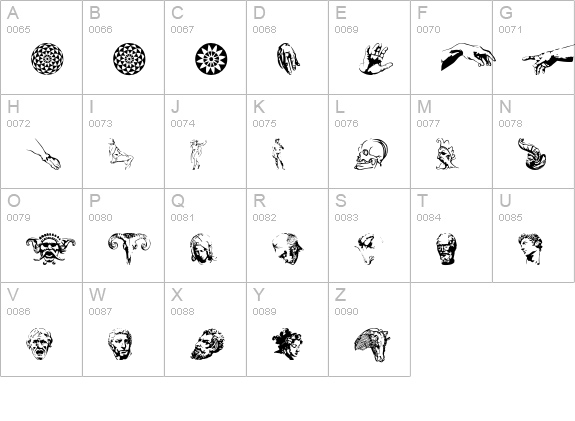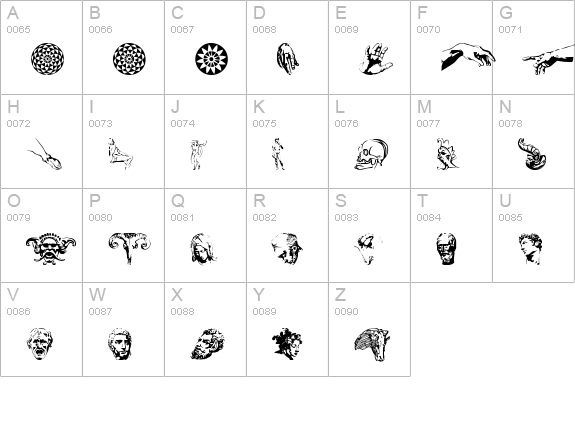
Michelangelo-Extras Font Details
Michelangelo-Extras font is a versatile and artistic typeface that offers a unique blend of elegance and creativity. With its intricate details and stylish curves, this font is perfect for adding a touch of sophistication to your design projects. The Michelangelo-Extras font includes a wide range of extra glyphs and symbols, allowing you to customize your text with flair and finesse. What makes Michelangelo-Extras font even more appealing is that it is completely free to download. You can access this stunning font at FontsMarket.com without any cost, making it a valuable addition to your font library. Whether you're working on a professional project or a personal creation, Michelangelo-Extras font is sure to make a lasting impression with its charm and versatility. Elevate your design work with this exquisite font today and let your creativity shine!